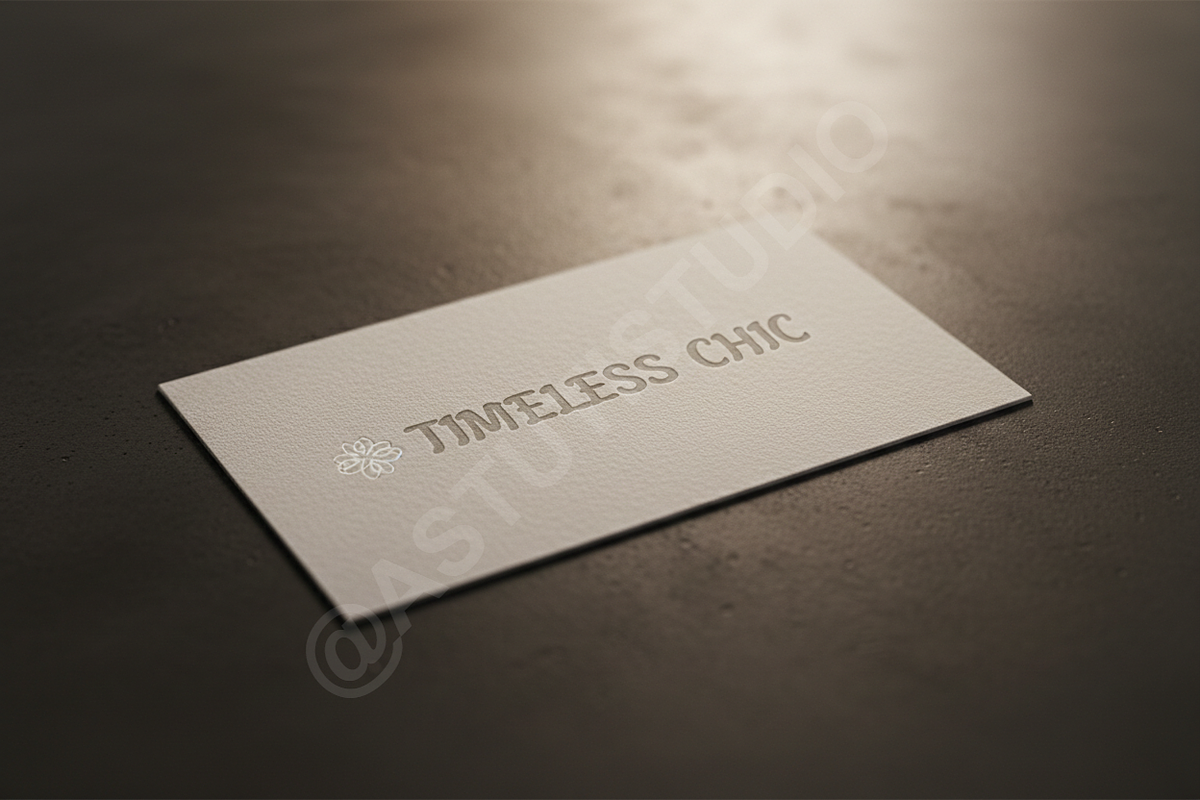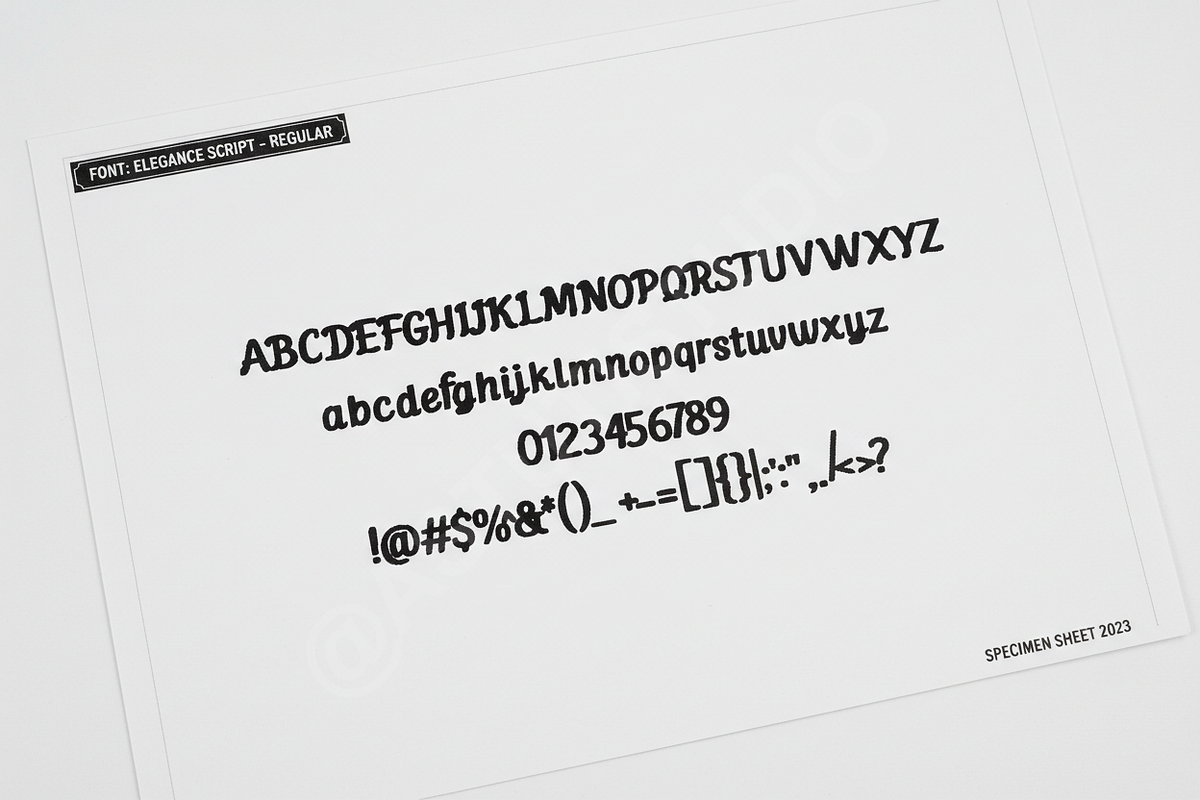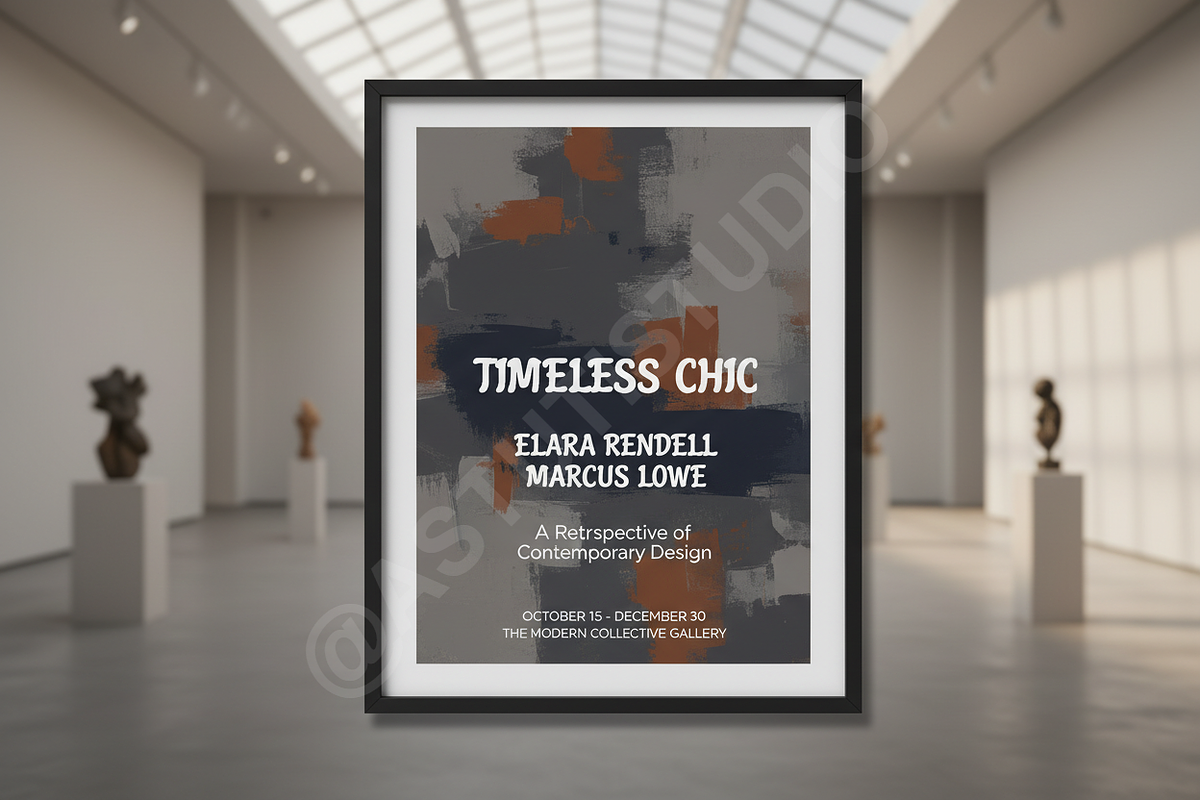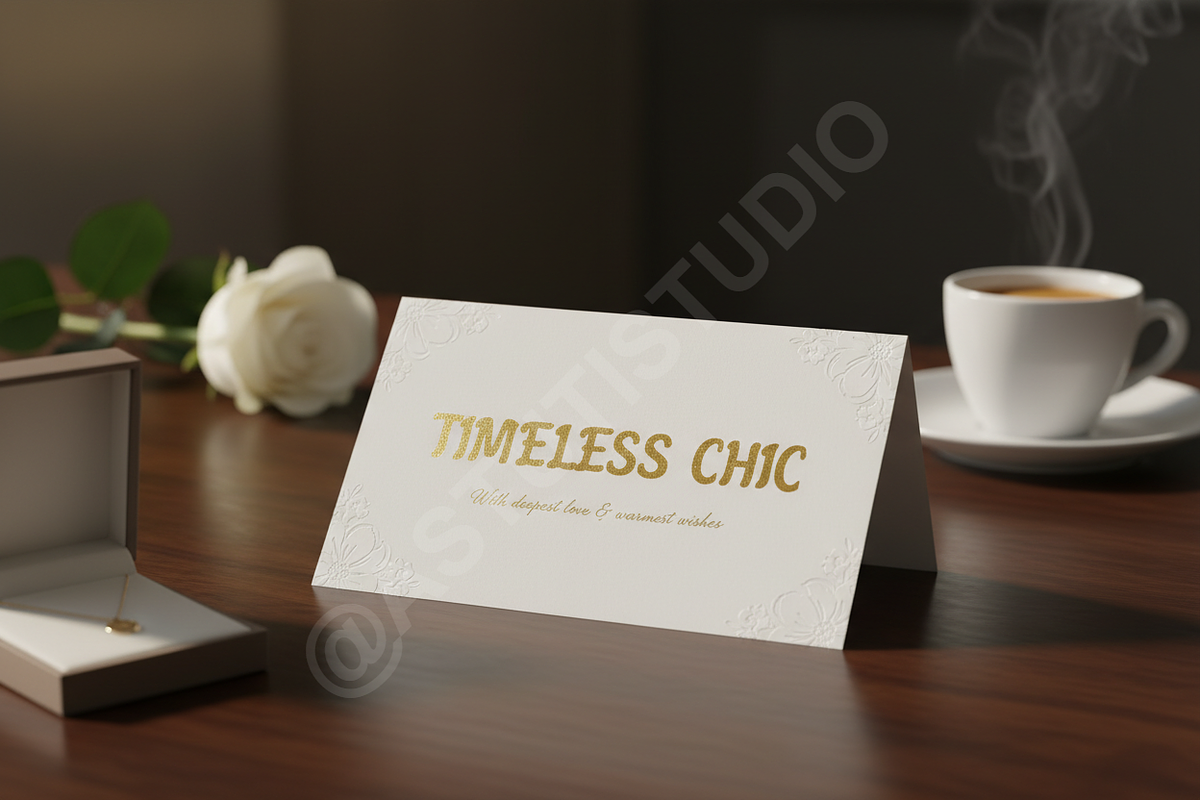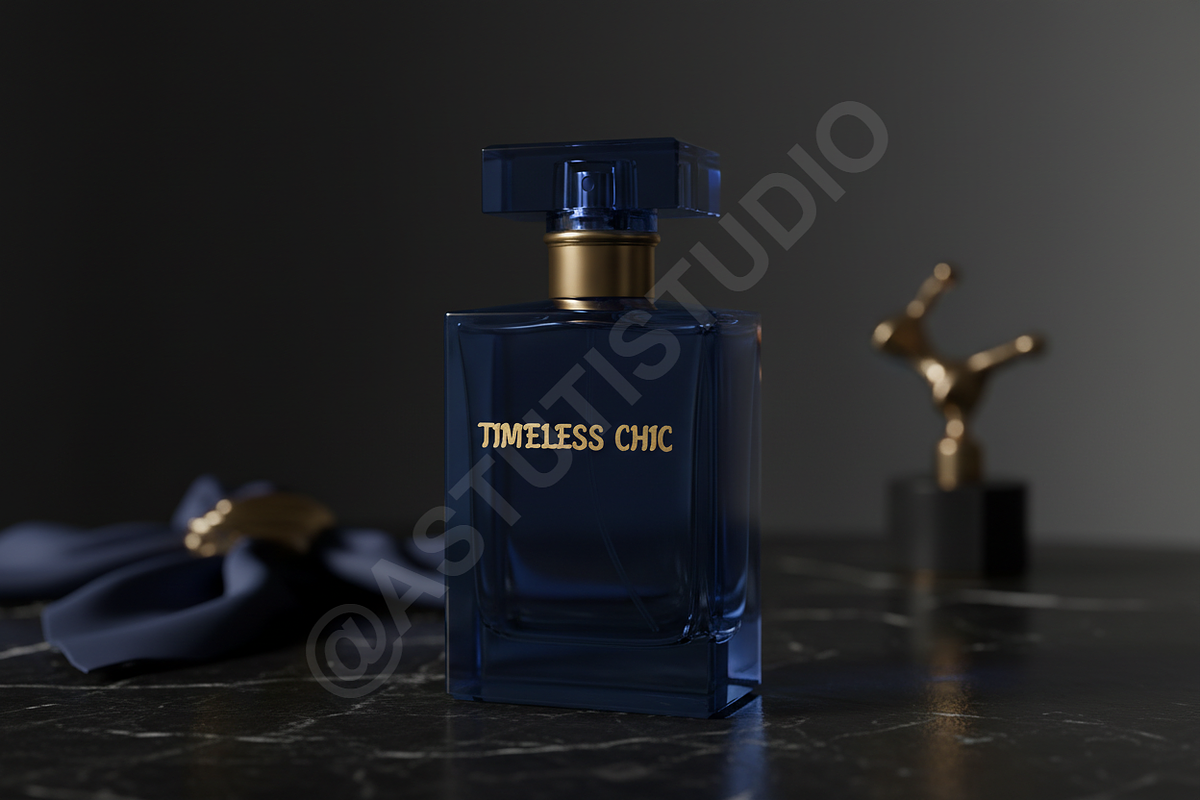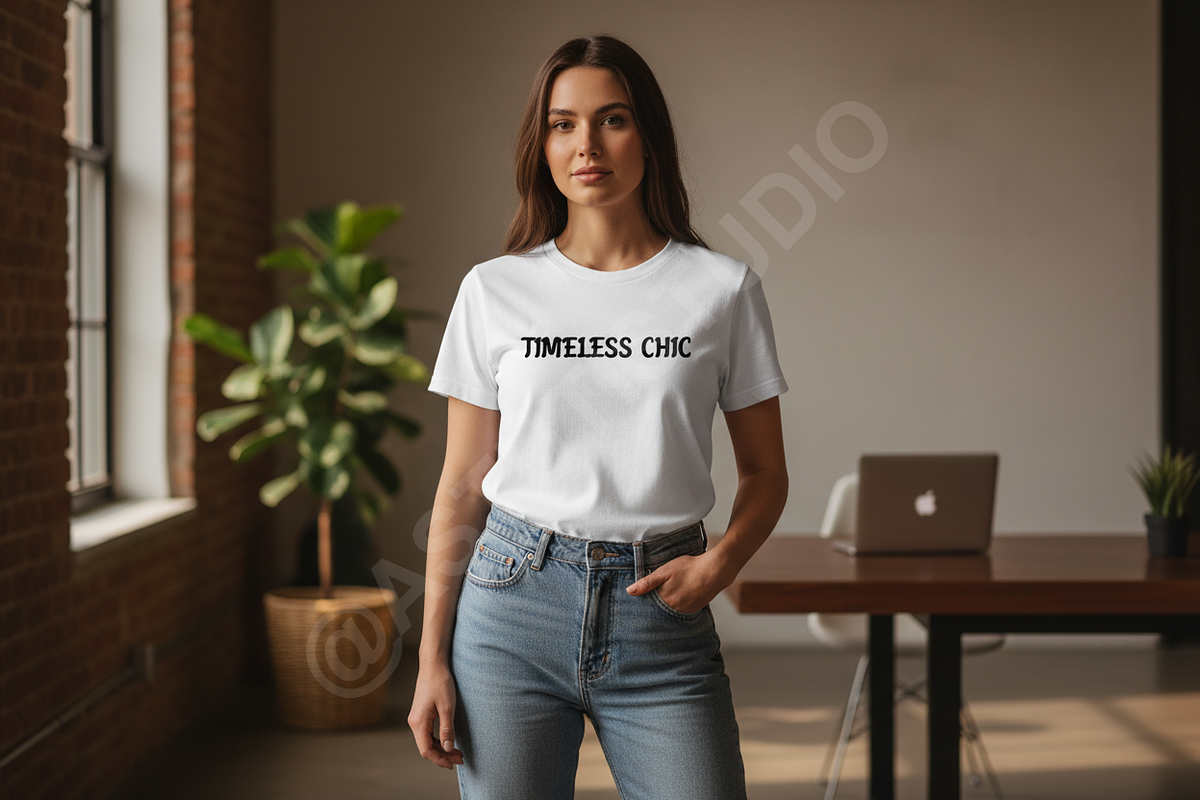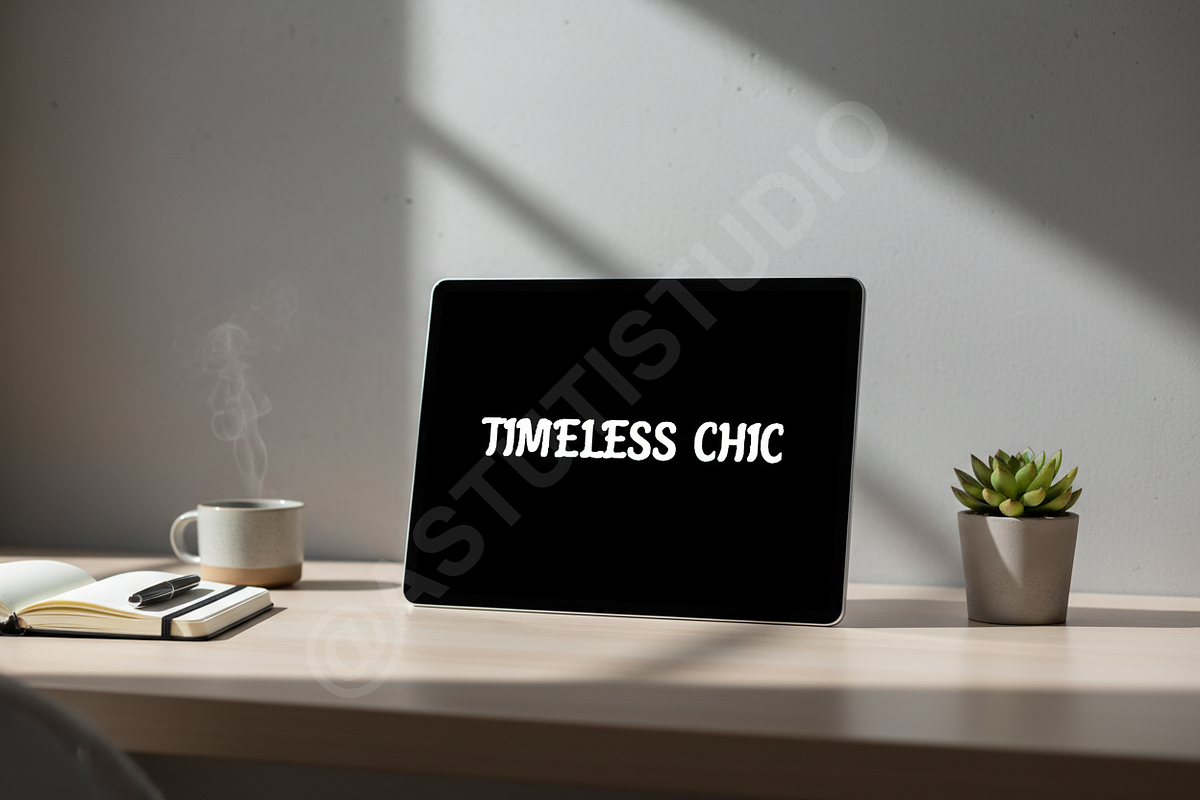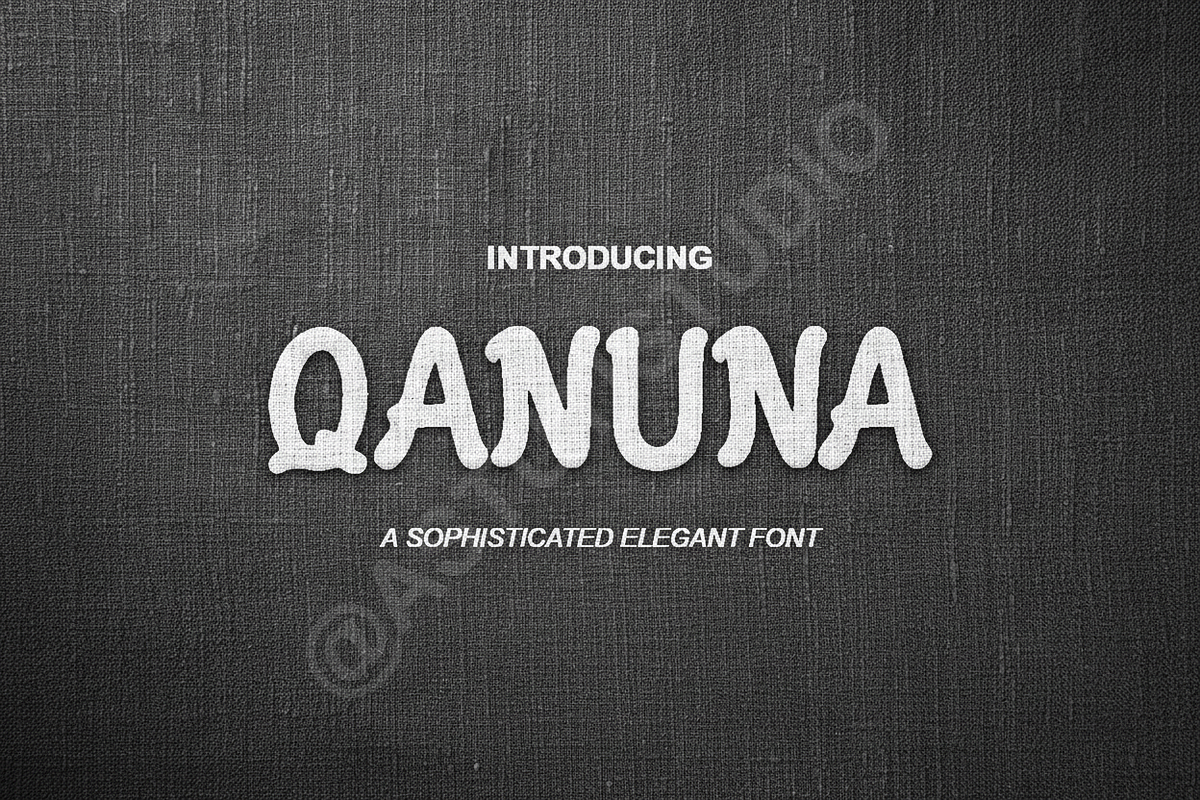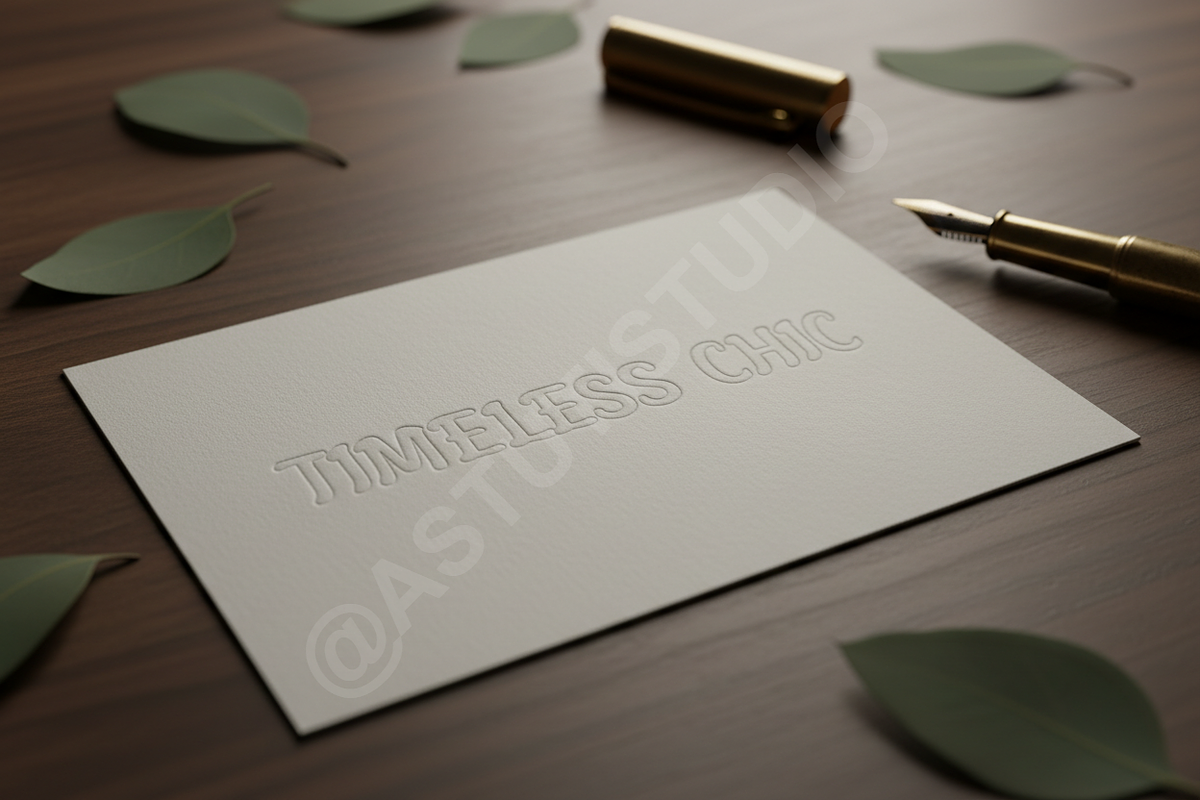
Qanuna - Luxury Serif Typeface
Welcome to Qanuna, a masterpiece of modern typography designed for those who demand sophistication. This premium serif typeface strikes a perfect balance between timeless grace and contemporary sharpness, making it an essential tool for high-end design projects. Its clean lines and unique character terminals offer a high-fashion aesthetic that commands attention while maintaining exceptional legibility.
- Luxury Branding and Identity
- Editorial Layouts and Magazine Design
- High-Fashion Advertising
- Social Media Content and Influencer Kits
- Wedding Invitations and Stationery
- Premium Packaging and Logo Design
- Full set of Uppercase and Lowercase characters
- Comprehensive Numerals and Punctuation
- Elegant Ligatures and Stylistic Alternates
- Multi-language support for global reach
- Precise kerning for a professional finish
- Clean and minimalist aesthetic